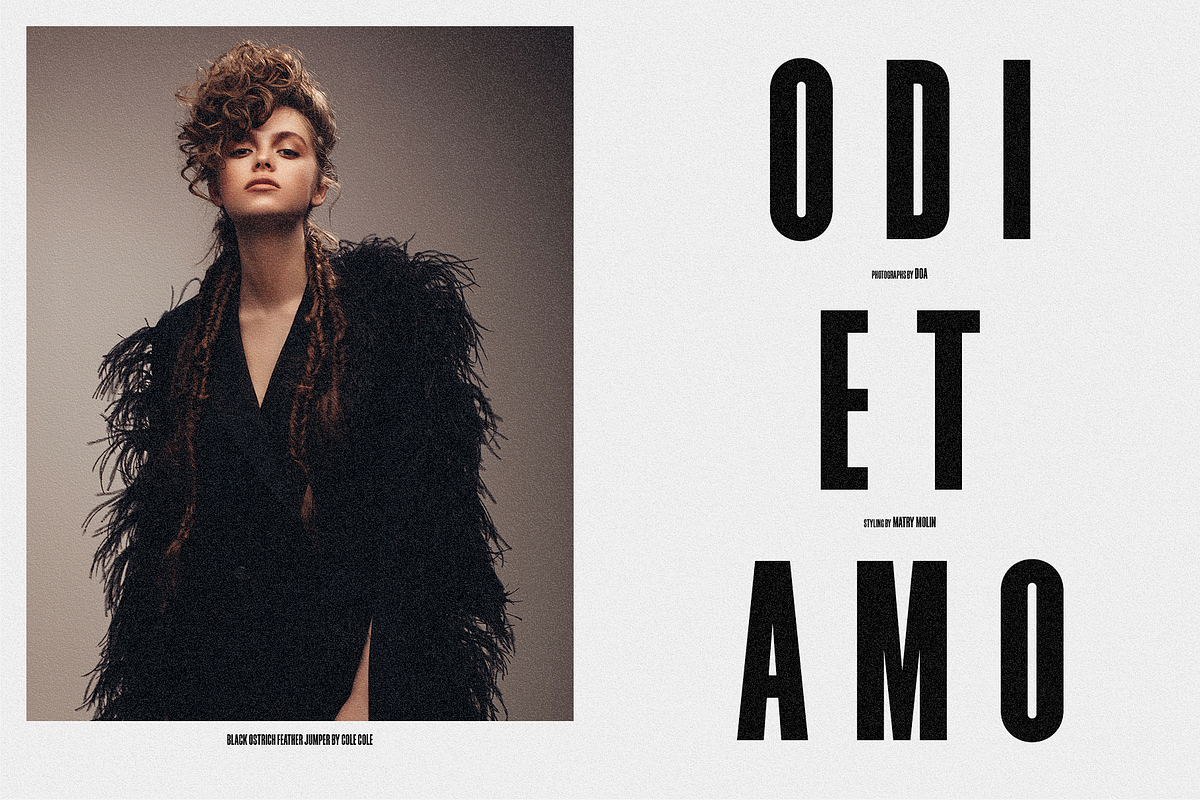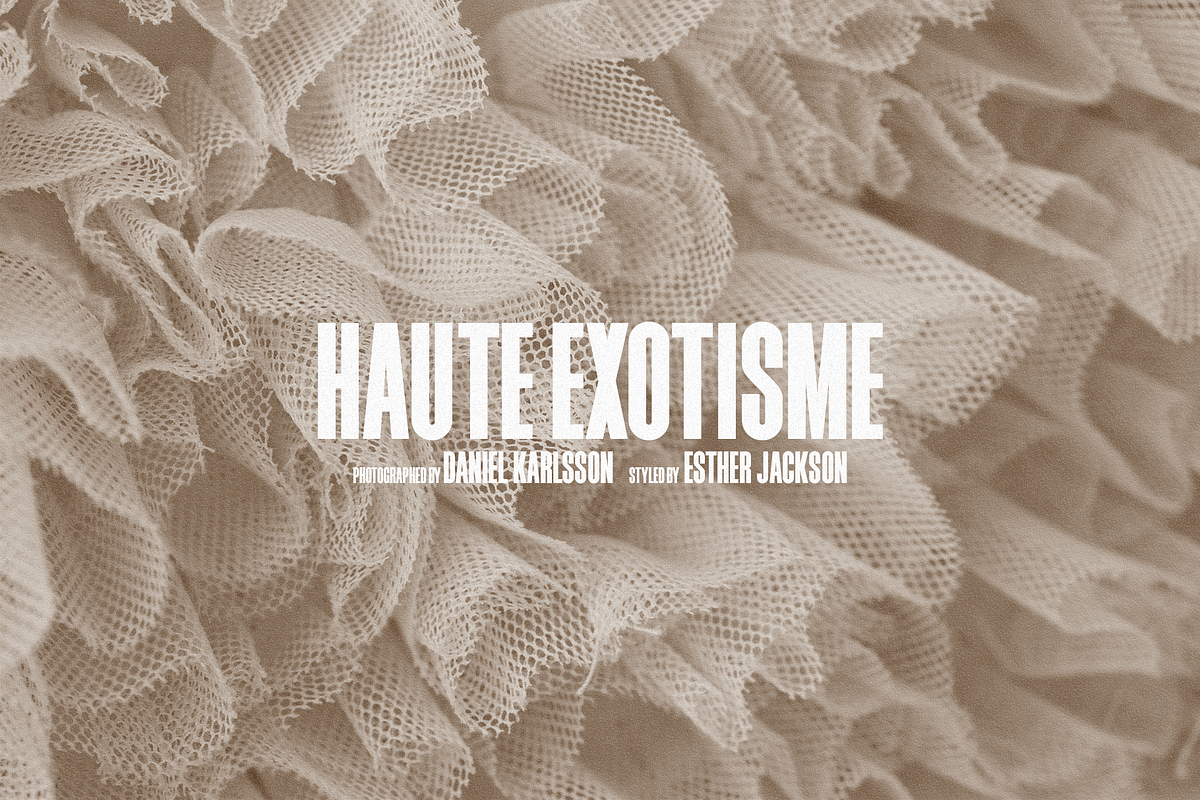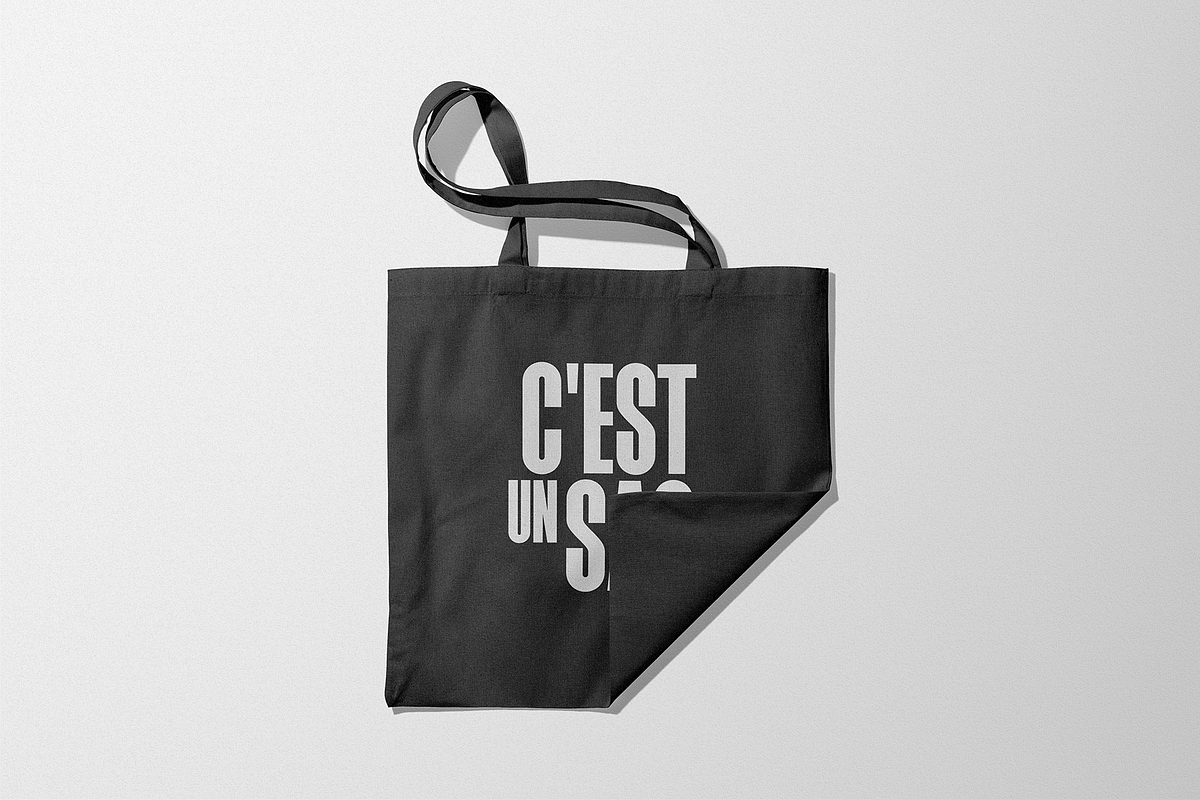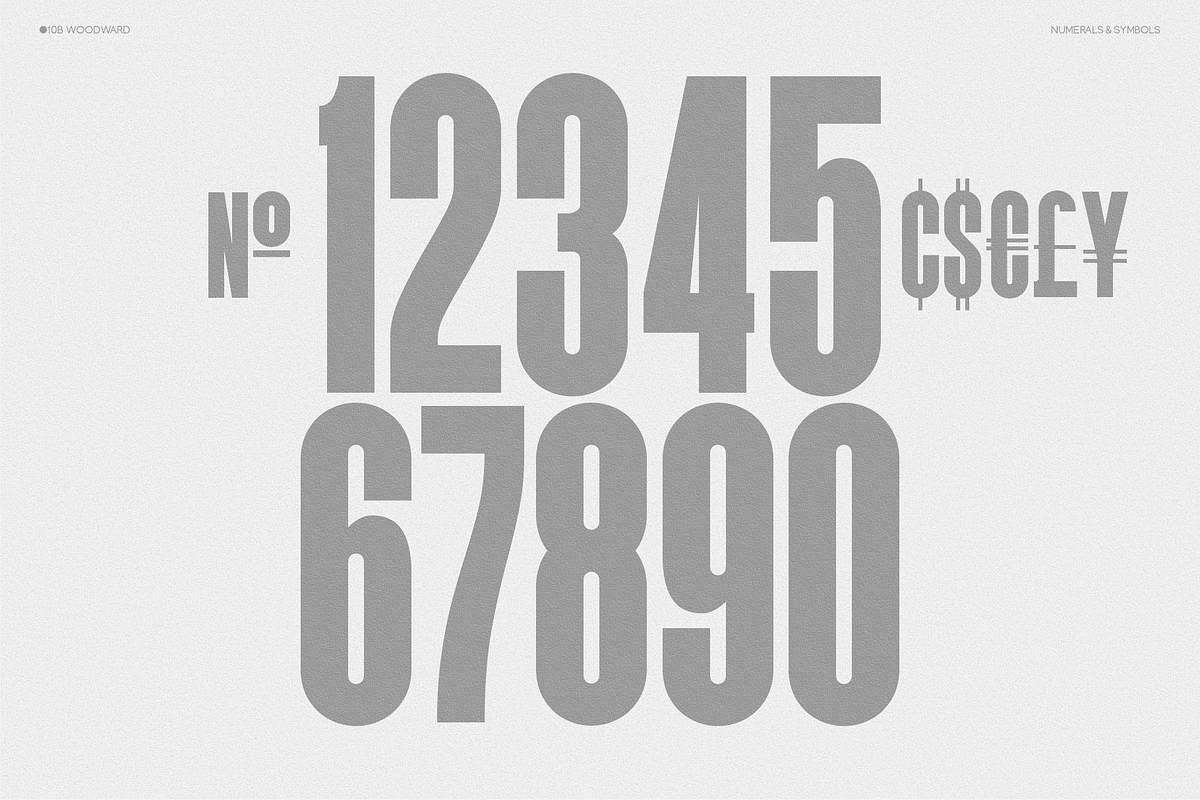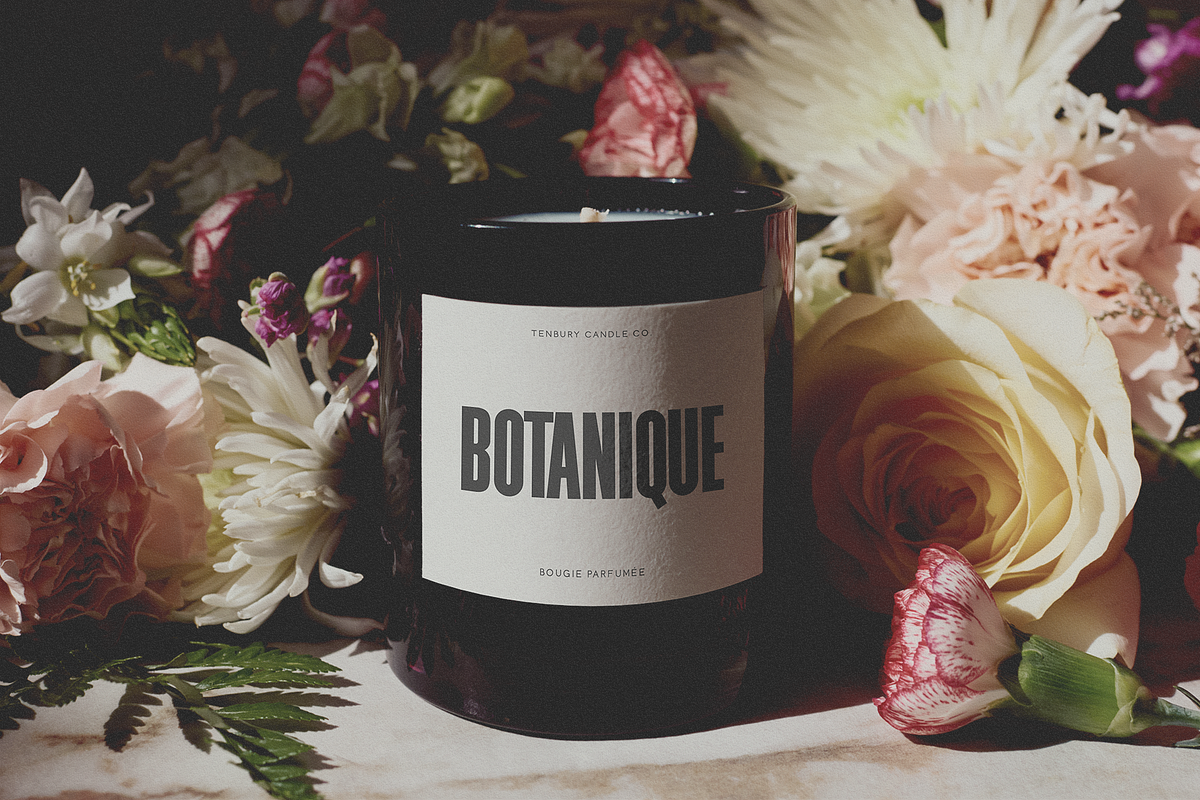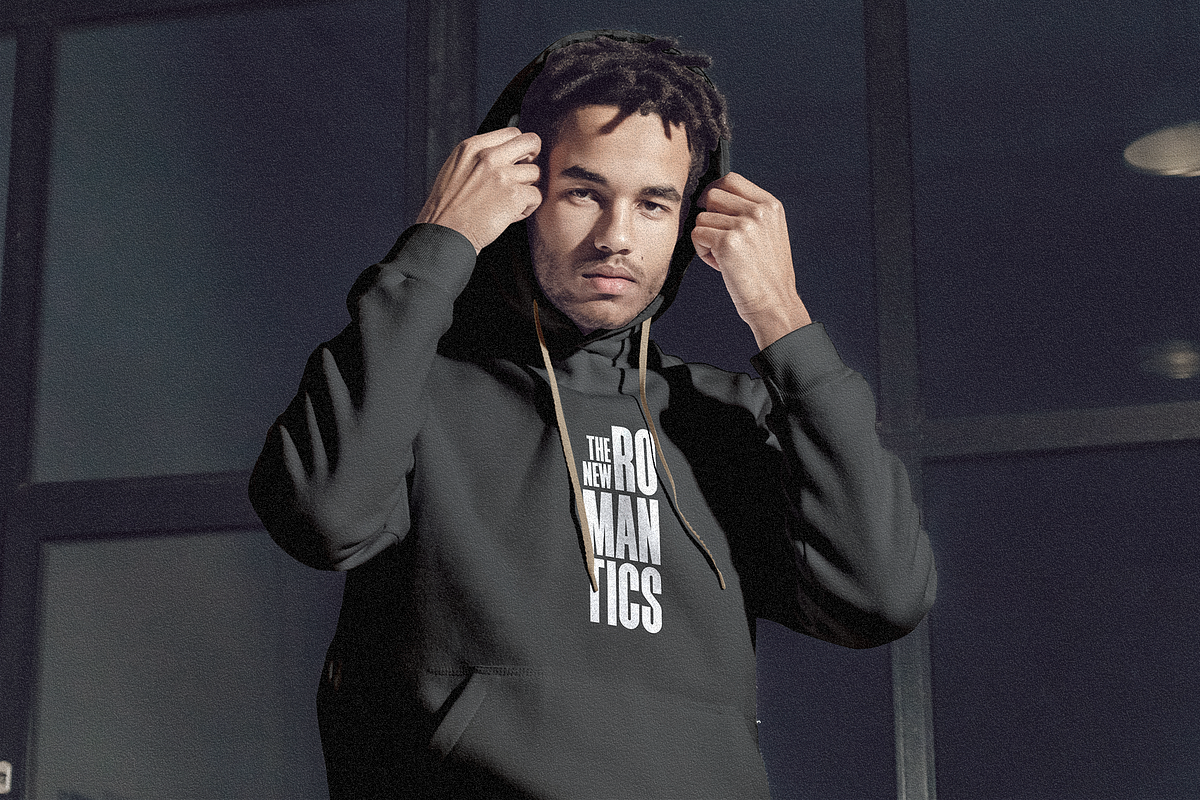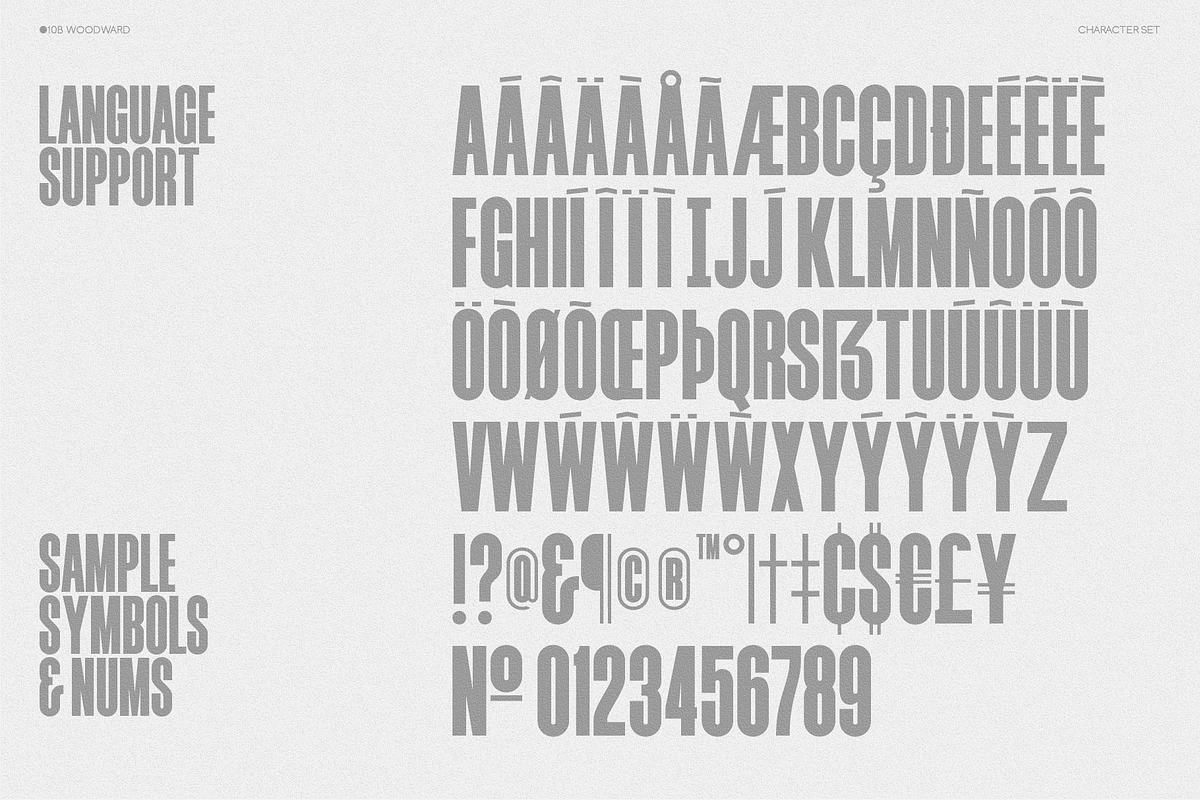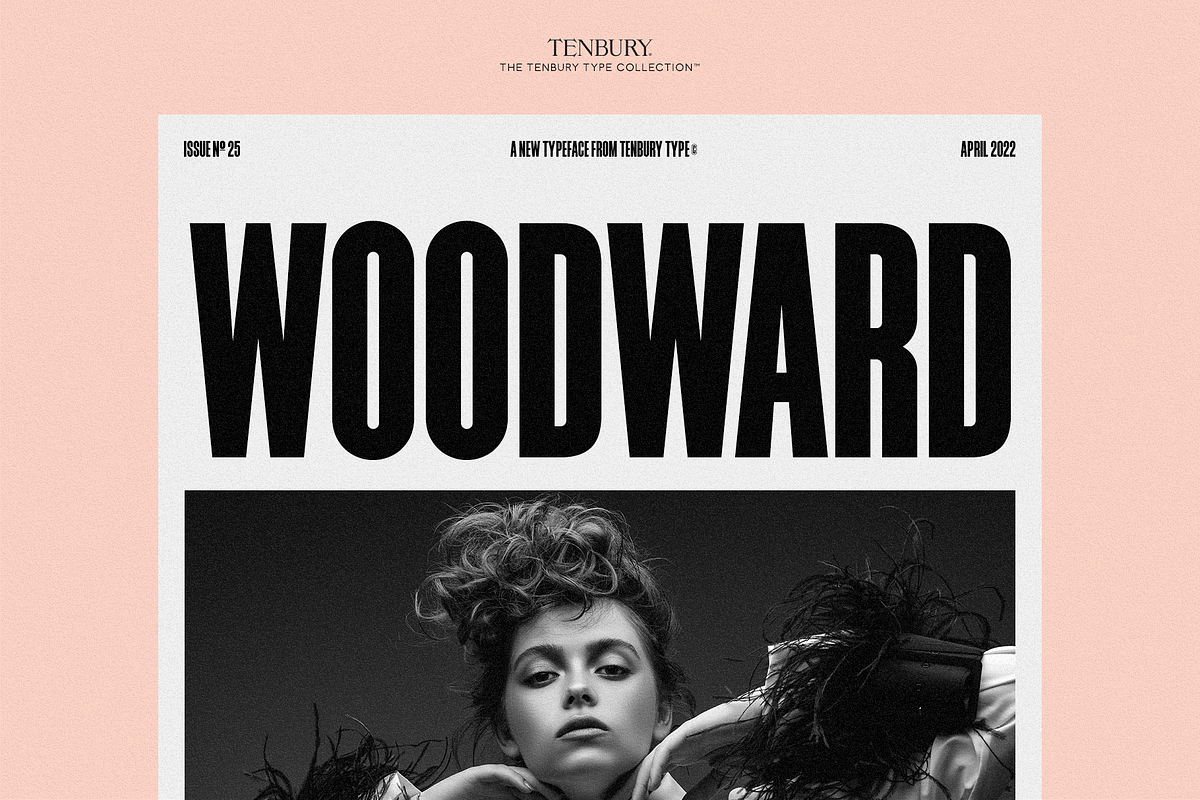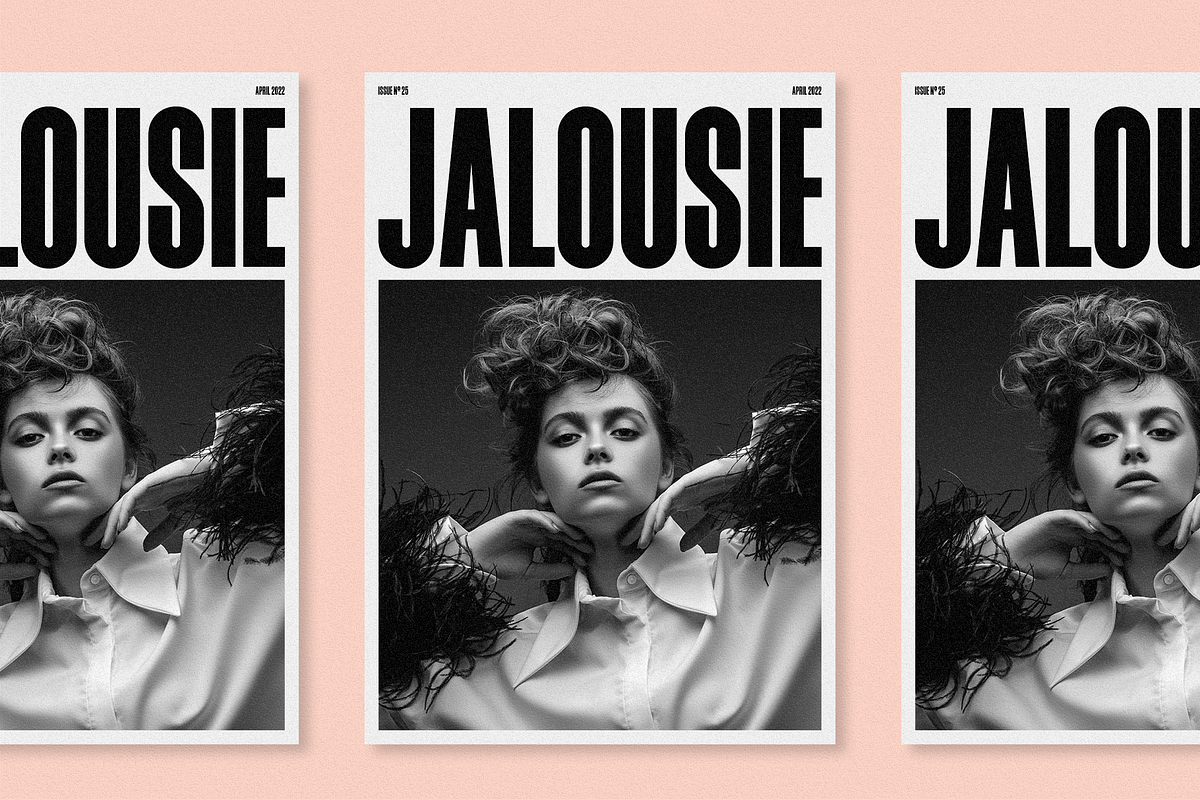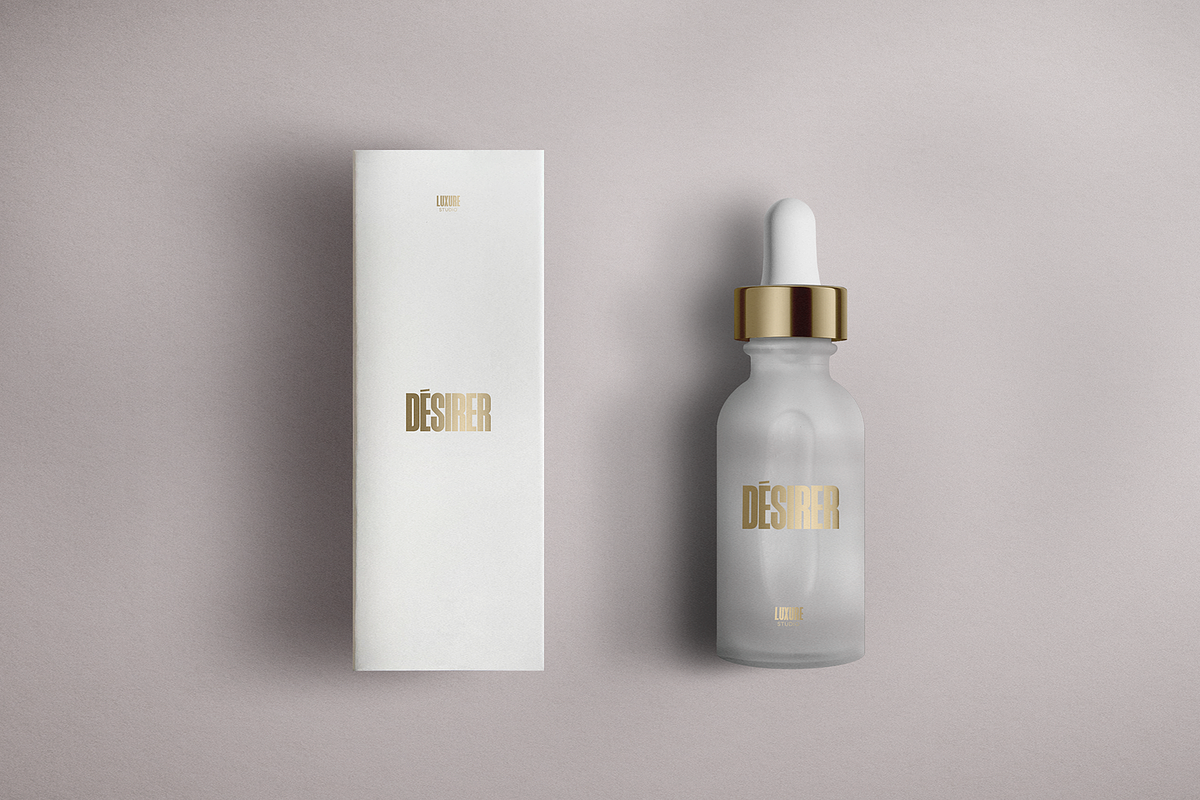
10B Woodward: Editorial Sans
10B Woodward is an all caps gothic sans that's absolutely perfect for editorial headlines. It's big, bold, and slim figure make it a great fit for posters, t-shirts, and magazine covers. Reserved to caps only, this poised and fearless typeface is a content creators best friend.
- Uppercase, Numerals, Punctuation & Symbols.
- Diacritics for Multilingual Support